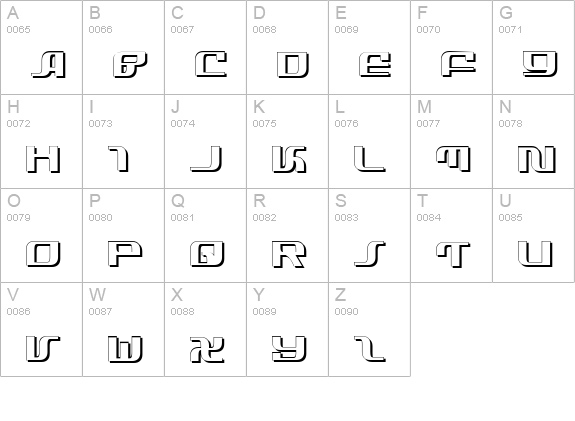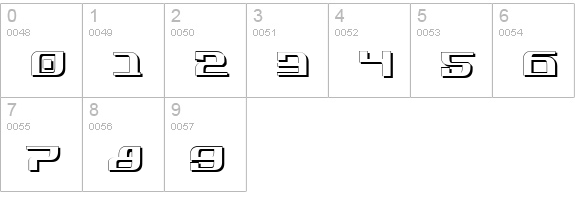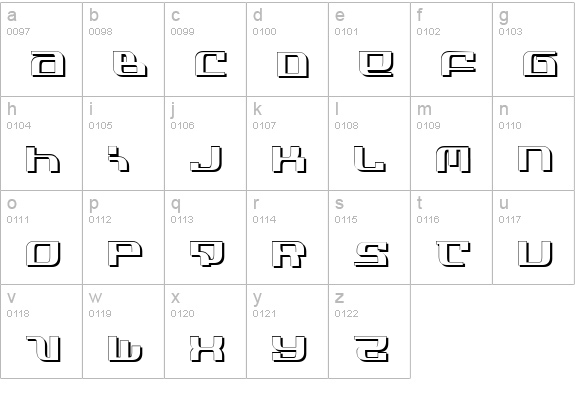
Infinity Formula Shadow font is a sleek and modern typeface that exudes a sense of elegance and sophistication. Its sharp and angular letterforms give a futuristic touch to any design project, making it perfect for branding, headlines, and editorial purposes. Designed with precision and attention to detail, Infinity Formula Shadow font is versatile and can be used for a wide range of applications. Whether you're creating a poster, logo, or website, this font will make your text stand out and leave a lasting impression. Best of all, Infinity Formula Shadow font is available for free download at FontsMarket.com. This means you can easily access this high-quality font without any cost, allowing you to enhance your design projects without breaking the bank. Don't miss out on this opportunity to elevate your typography game with Infinity Formula Shadow font.